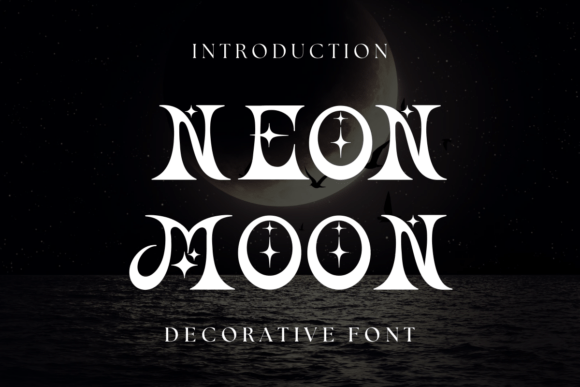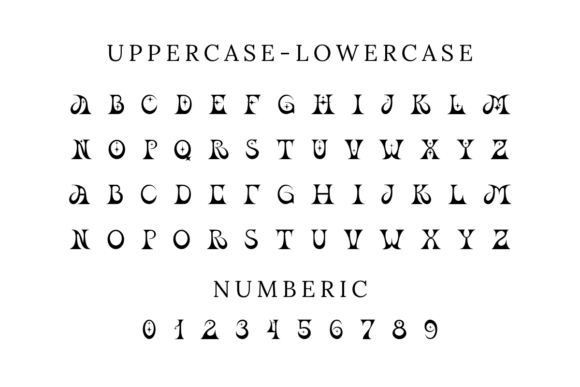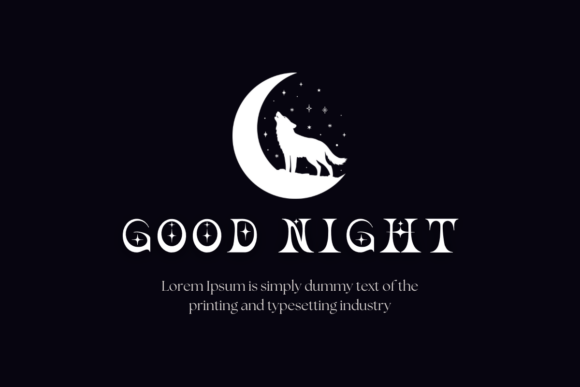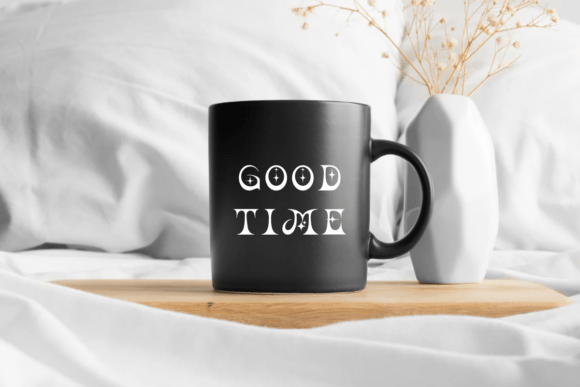
Neon Moon Font: A Whimsical Decorative Display Font
About the Neon Moon Font
Meet Neon Moon Font, a stunning font that brings a touch of elegance and professionalism to any design. Neon Moon is a gorgeous decorative font. You can use it for taking notes, writing a diary, or making greeting cards. However, you can still use it for other designs, such as banners, content, mugs, cards, shirts, stationery, social media posts, and more!
Neon Moon’s decorative style shines brightest in headlines, short text blocks on posters or social media graphics, and branding elements requiring a touch of whimsical flair. It works exceptionally well for packaging design, particularly for products targeting a younger, trend-conscious demographic. Avoid using it for body copy or UI elements; its ornate details compromise readability in extended text.
Consider pairing Neon Moon with a clean sans-serif like Open Sans for a balanced contrast, or a classic serif like Garamond for a more sophisticated feel. For a bolder, more modern look, try pairing it with a geometric sans-serif like Futura.
The font projects a playful yet sophisticated personality, leaning towards a modern vintage aesthetic. Its energy is best suited for brands focusing on creativity, individuality, or nostalgic themes.
Neon Moon Font Usage Examples
Neon Moon Font Example